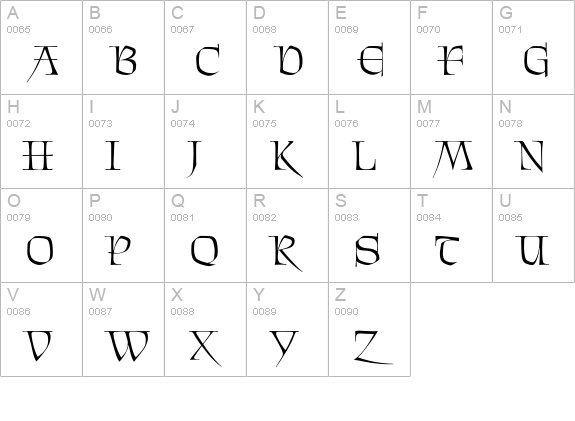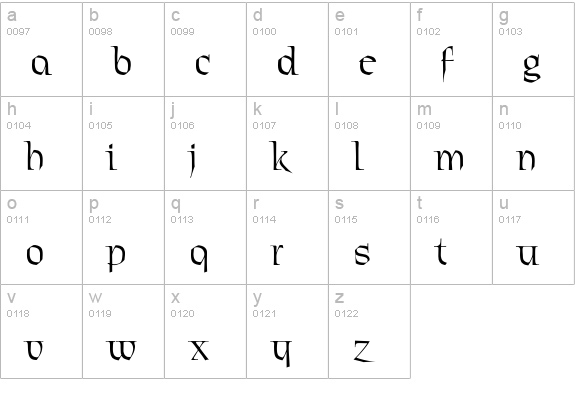
Chevalier font is a stunning display typeface that combines elegance and sophistication with a touch of vintage charm. Its intricate details and stylish flourishes make it perfect for adding a touch of luxury to your designs. The ornate serifs and graceful curves of Chevalier font exude a sense of class and refinement, making it a versatile choice for a wide range of projects. And the best part? Chevalier font is available for free download at FontsMarket.com! Whether you're designing invitations, branding materials, or editorial layouts, Chevalier font will elevate your work to the next level. Don't miss out on this exquisite typeface that is sure to make a lasting impression. Download Chevalier font today and add a touch of timeless elegance to your projects.